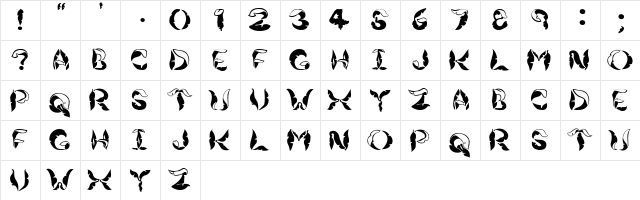
JungleLeaves Regular Free Font
JungleLeaves Regular
Design Context for JungleLeaves
JungleLeaves is a composed and adaptable typeface that performs quietly and consistently across a wide range of design contexts.